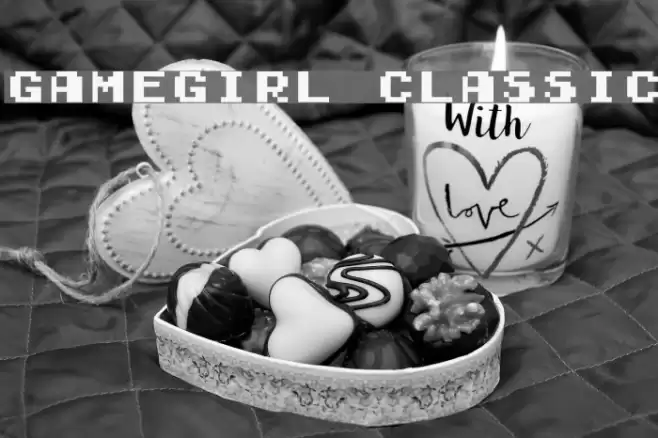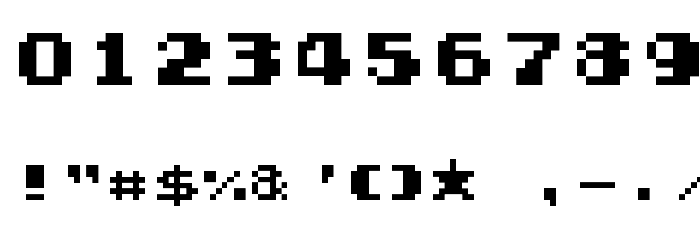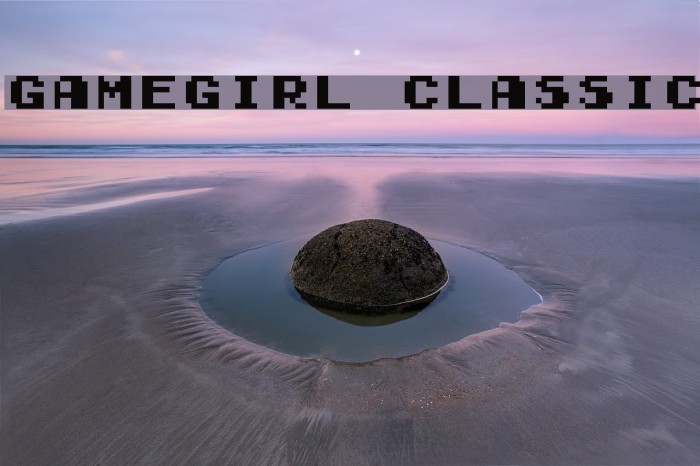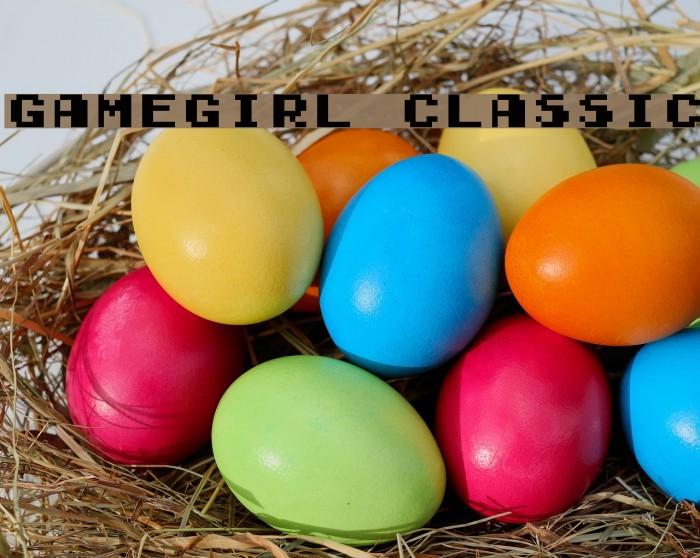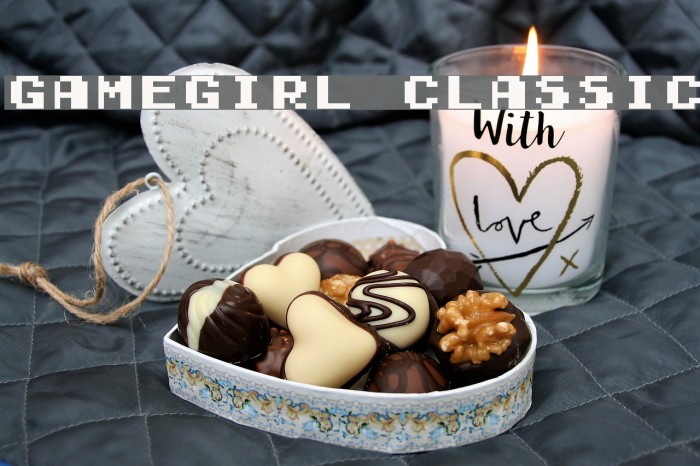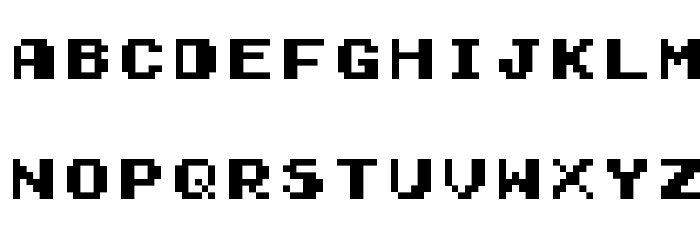
Gamegirl Classic Font
Gamegirl Classic Description
This font features a pixelated, blocky design reminiscent of classic video game aesthetics. Each character is constructed with a grid-like precision, giving it a retro, digital appearance. The uppercase and lowercase letters maintain a consistent height, contributing to a uniform look. Numbers and special characters follow the same pixelated style, ensuring visual harmony across all glyphs. The font's simplicity and nostalgia-inducing design make it ideal for projects that aim to evoke a sense of classic gaming or digital nostalgia.
A pixelated, retro-style font inspired by classic video games from Pixel fonts.
- Proposed Projects: Ideal for video game designs, retro-themed posters, digital art, and any project seeking a nostalgic gaming aesthetic.
- Overall Style: Vintage
- Use Case: Headlines, Logos, Digital Art